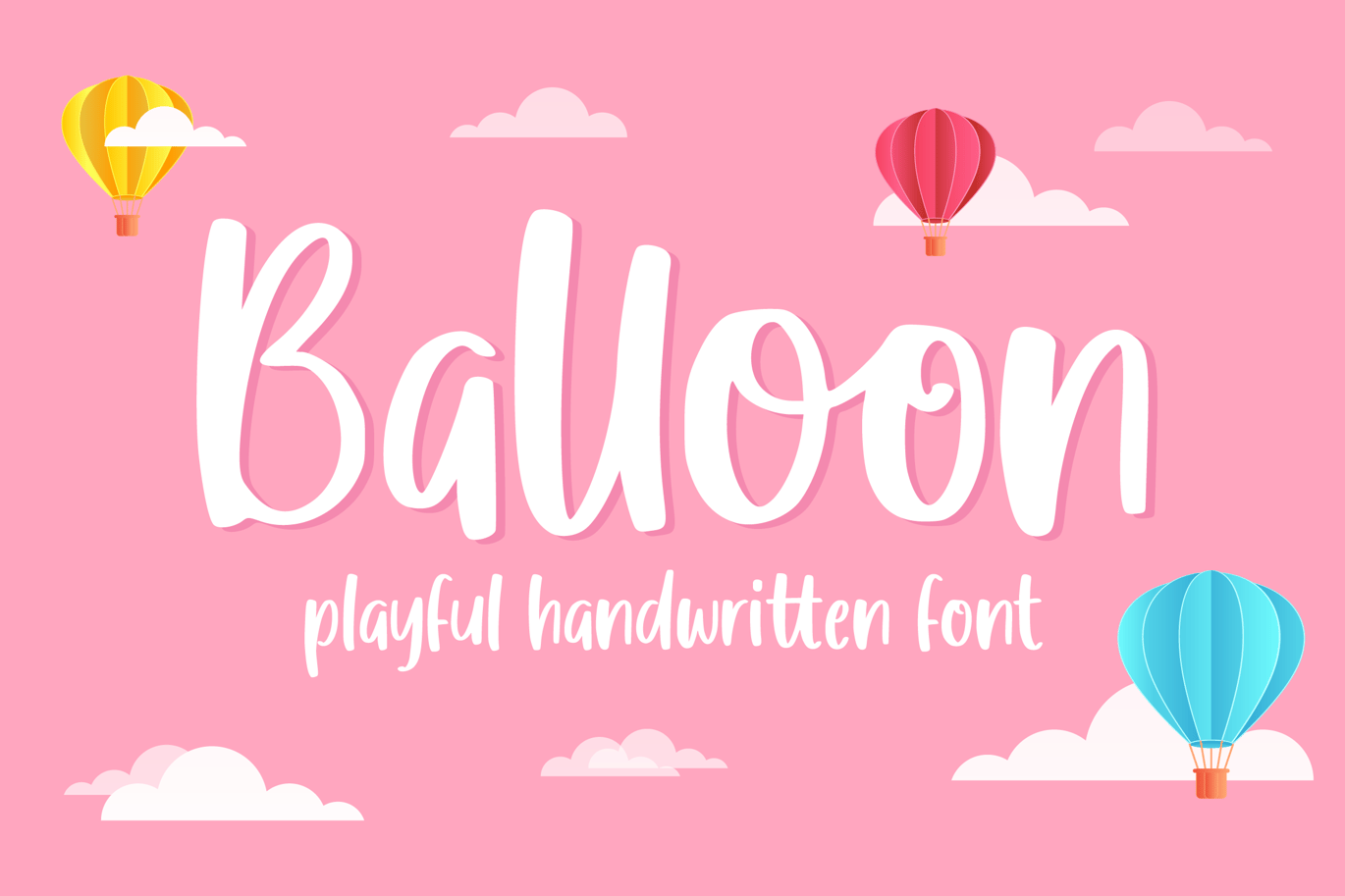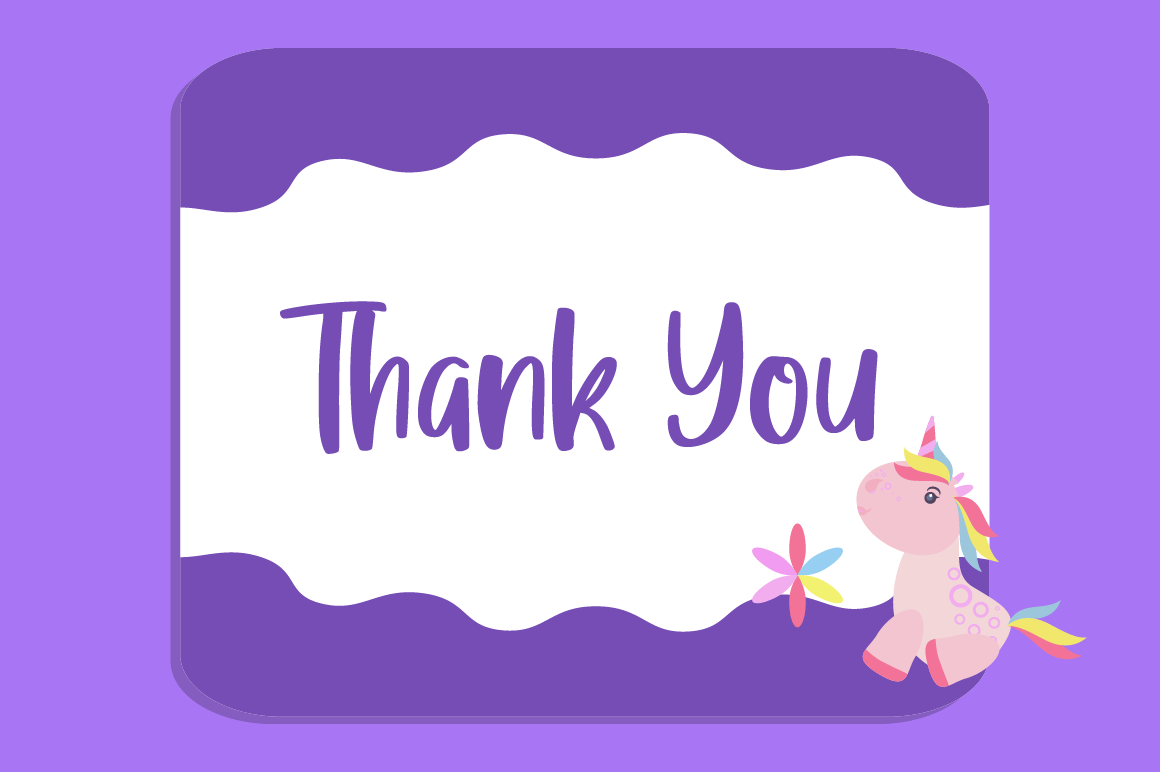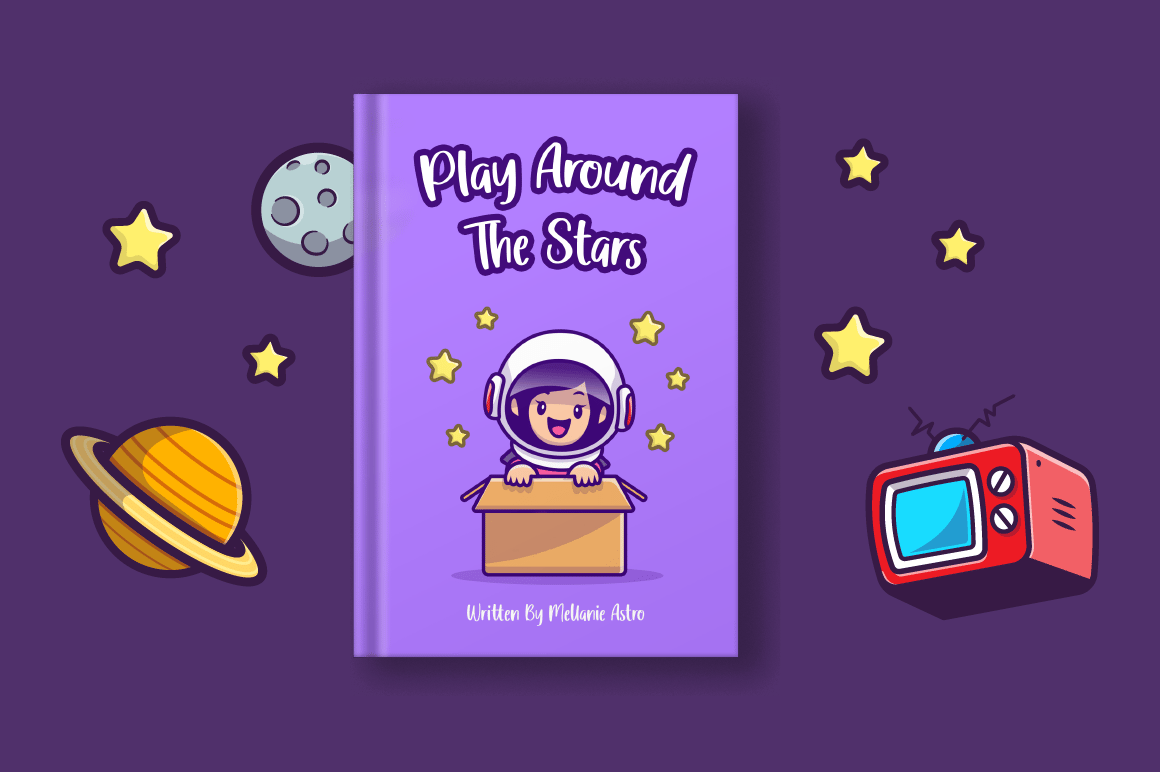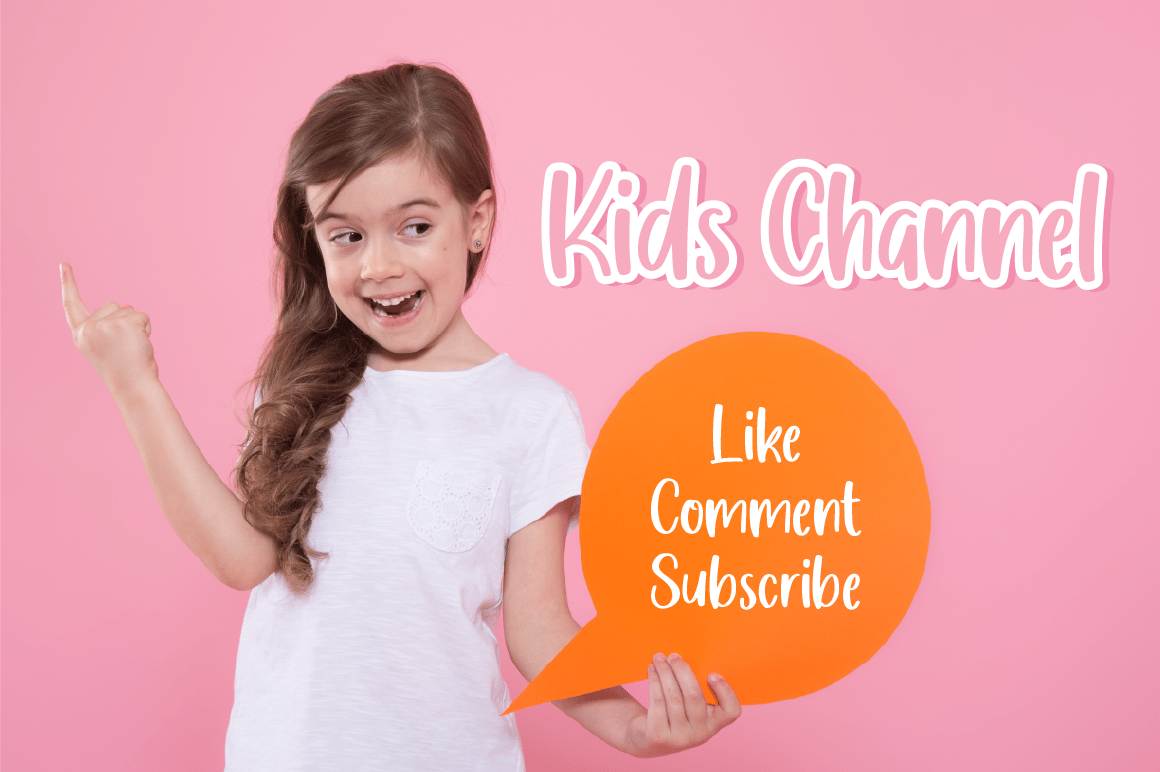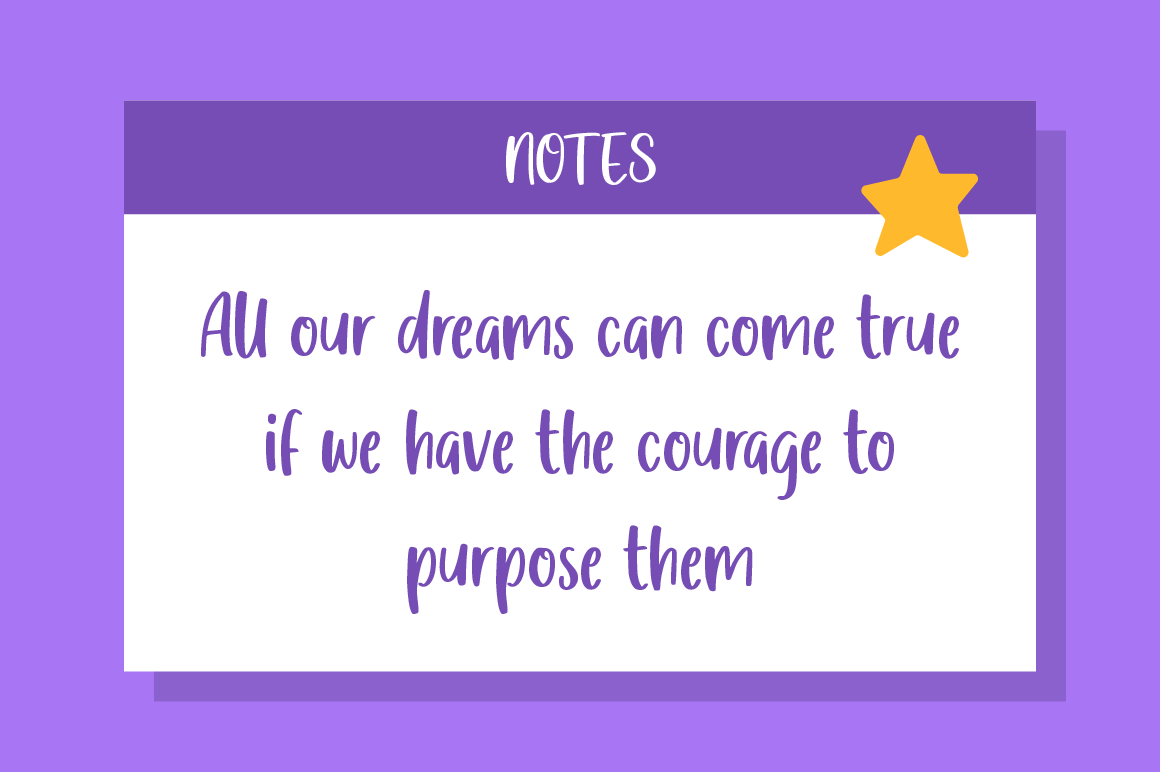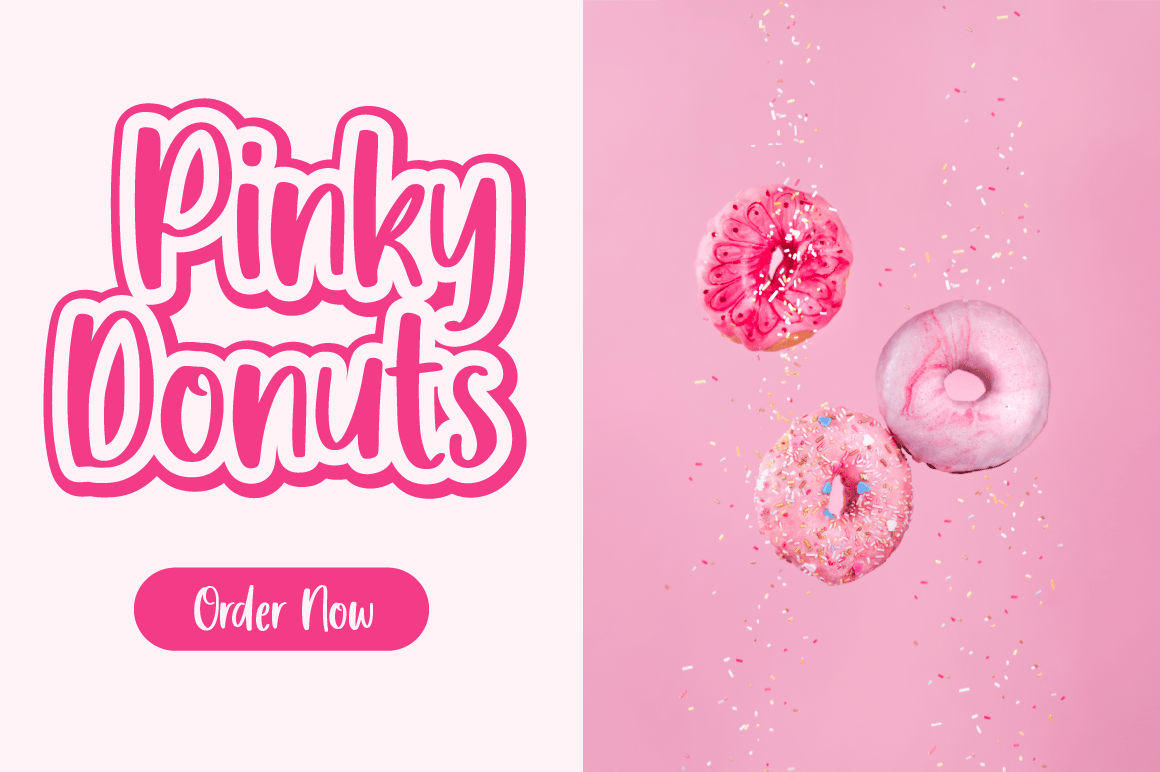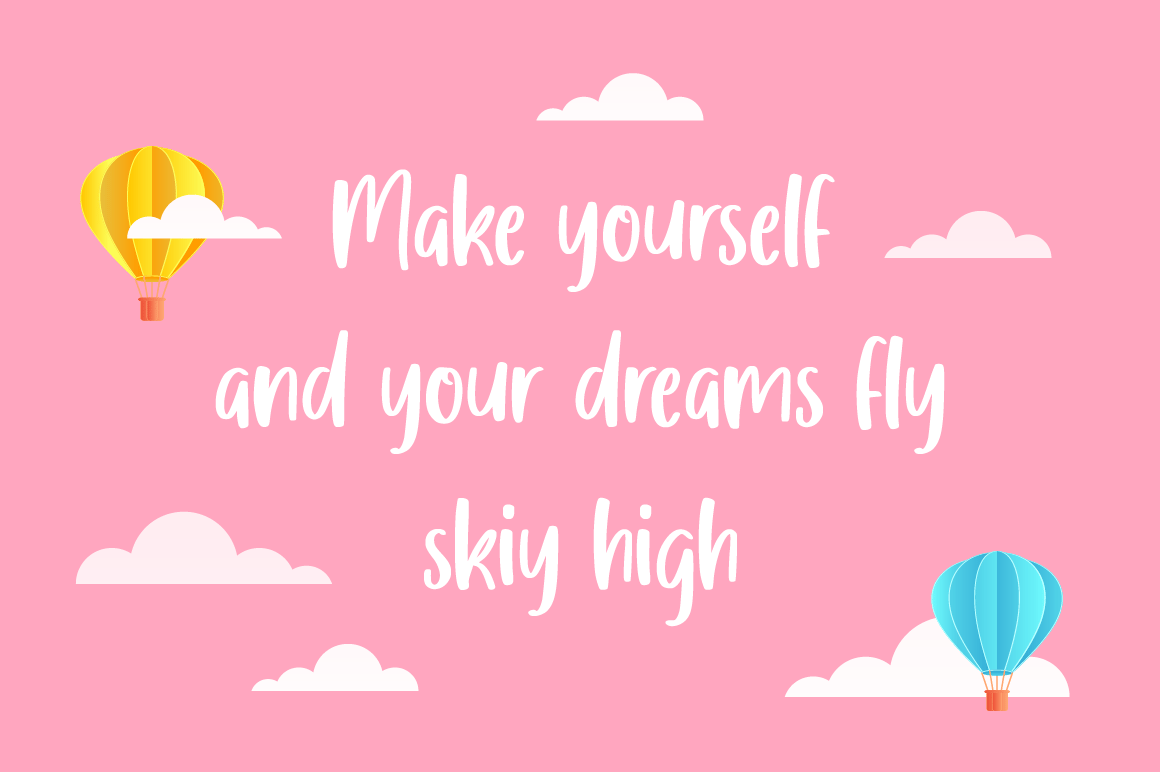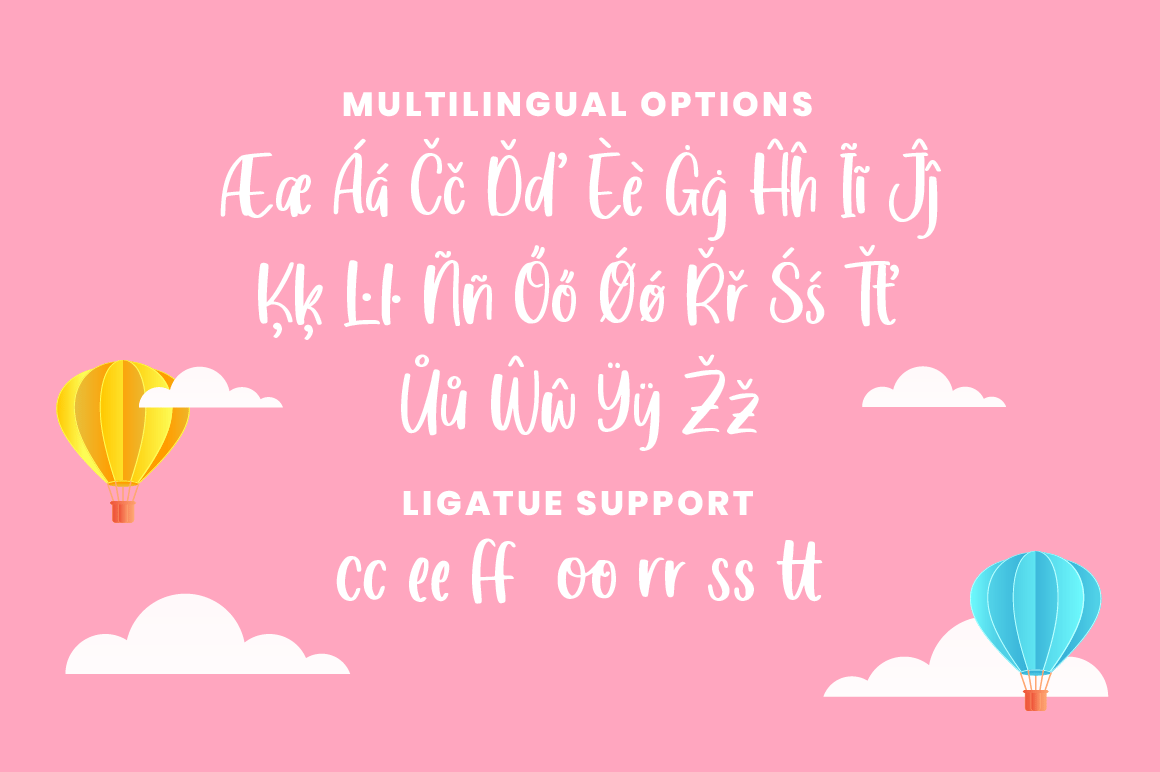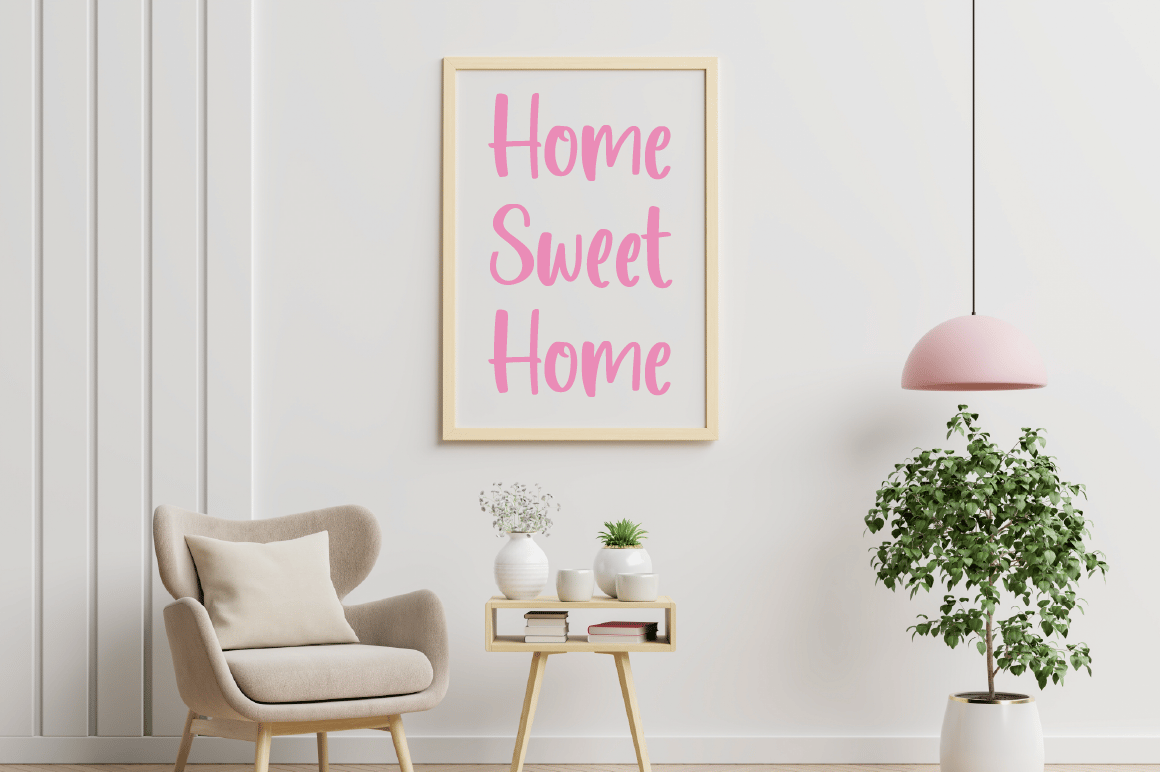
Balloon – Playful Font
Balloon is a cute and playful display font. It will add an incredibly joyful touch to your designs. Add this beautiful display font to each of your creative ideas and notice how it makes them stand out!
- Ligatures, Swash, Alternates
- Letters, Numbers, punctuation